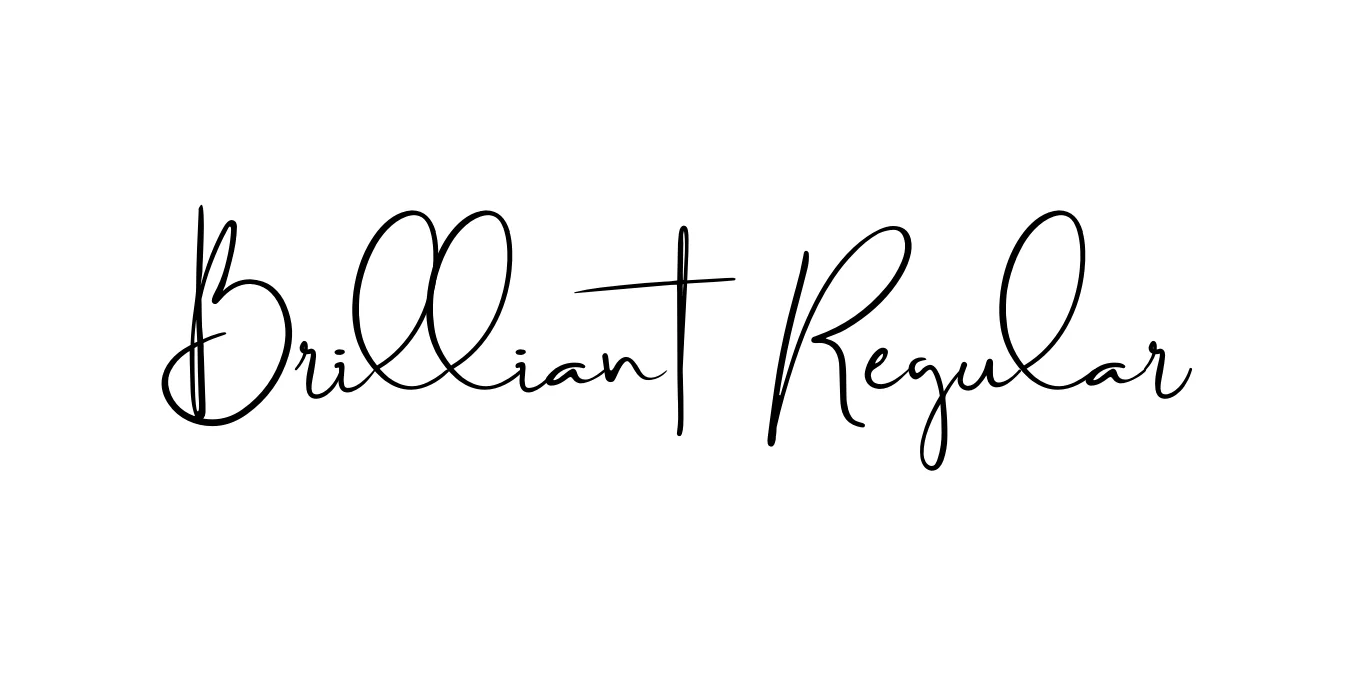
Brilliant Regular
Designed by Letterhend Studio
Brilliant Regular is a sophisticated signature-style font designed to capture the elegance and fluidity of natural handwriting. Developed by the creative team at Letterhend Studio, this typeface features smooth strokes and a refined aesthetic that brings a sense of luxury and personal touch to any design project. It was meticulously crafted to ensure that the ligatures and character transitions feel seamless, mimicking the authentic flow of a fountain pen on paper.
The font has gained significant popularity in the digital era for its versatility in high-end branding and editorial design. Brilliant Regular includes a variety of OpenType features, such as stylistic alternates and swashes, which allow designers to customize their typography for a unique look. Whether it is used for a corporate logo or a delicate wedding invitation, the font maintains its legibility while providing a distinct, high-fashion personality.
Brilliant Regular Best Uses
Excellent for creating personal branding, watermarks, and sophisticated corporate identities.
Ideal for high-end wedding invitations, save-the-date cards, and place settings.
Perfect for aesthetic Instagram quotes, Pinterest graphics, and lifestyle blog headers.